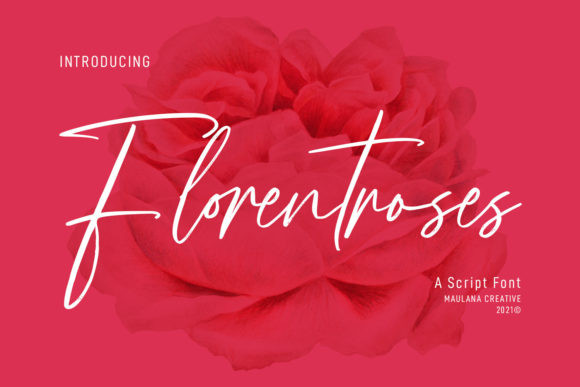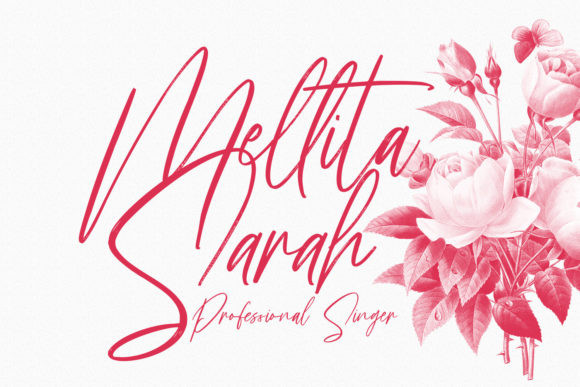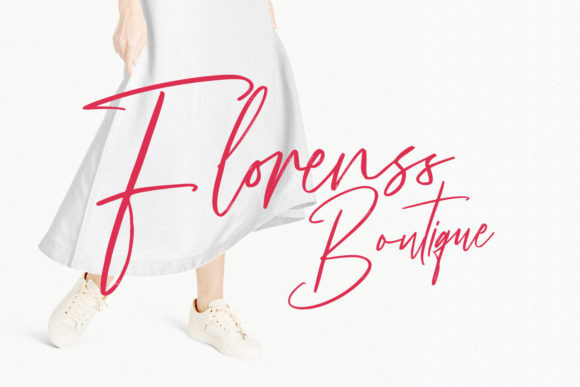
Florentroses Font
Florentroses Signature is a lovely and delicate script font that exudes elegance and class. This font was particularly crafted for those who need a beautiful and refreshing look to their designs.